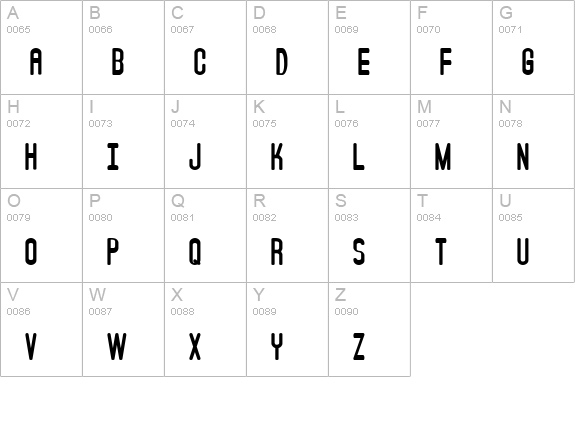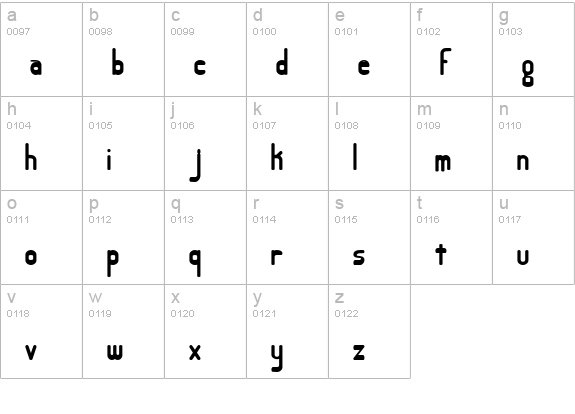
Lucid Type A (BRK) Font Details
Lucid Type A (BRK) font is a modern and sleek typeface that exudes sophistication and elegance. Its clean lines and smooth curves make it perfect for a wide range of design projects, from branding to web design. The versatility of this font allows it to be used in both headers and body text, making it a valuable addition to any designer's toolkit. What sets Lucid Type A (BRK) font apart is its unique blend of contemporary style and classic elegance. Whether you're creating a minimalist logo or designing a sleek website, this font will help you achieve a polished and professional look. Best of all, Lucid Type A (BRK) font is free to download at FontsMarket.com. This means that you can start using this beautiful typeface in your projects right away, without having to worry about any licensing fees. Don't miss out on the opportunity to enhance your designs with the timeless beauty of Lucid Type A (BRK) font.